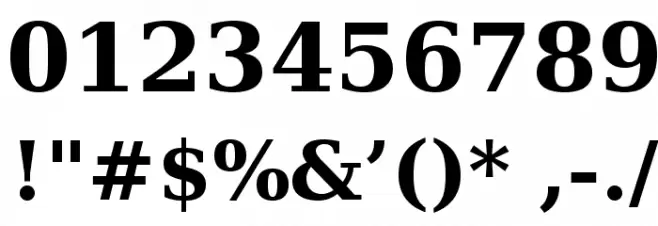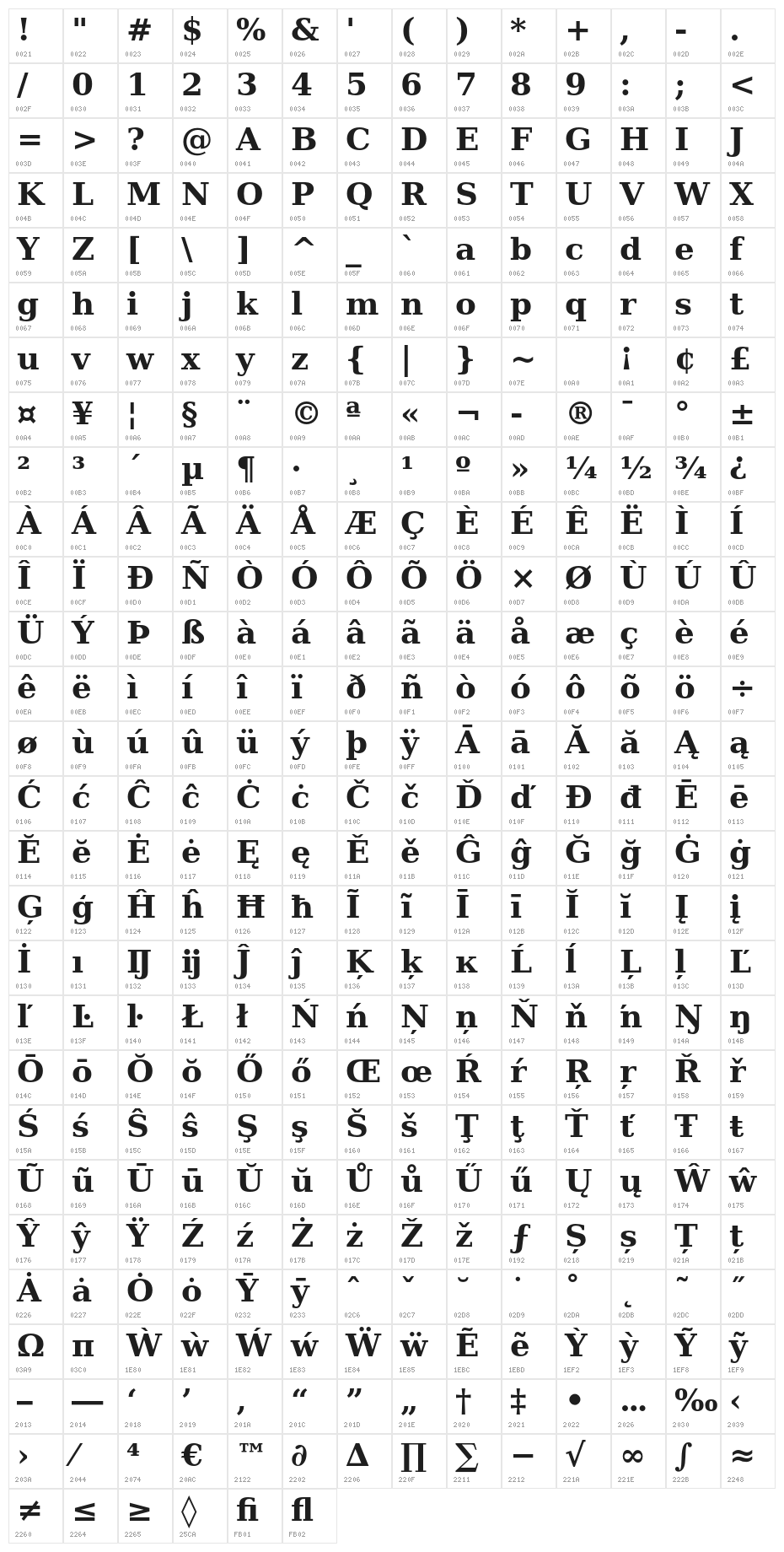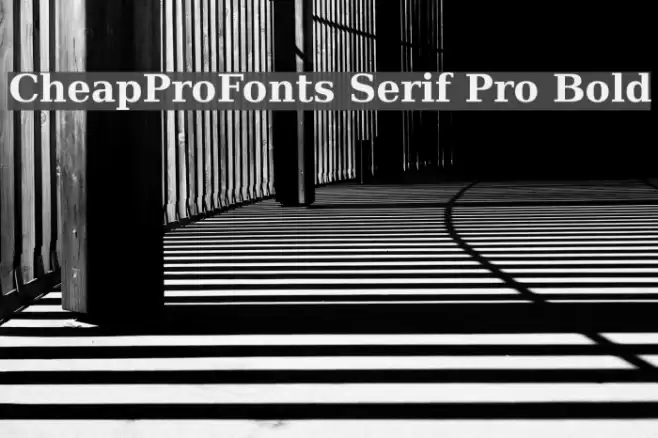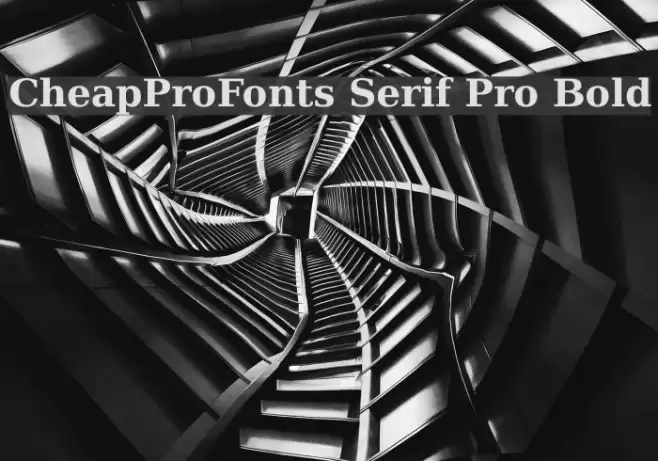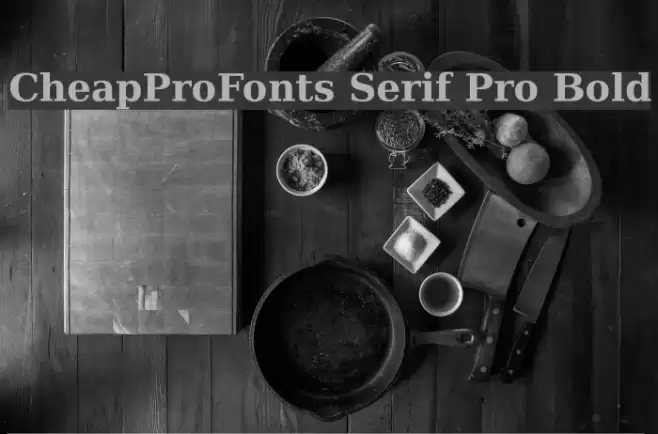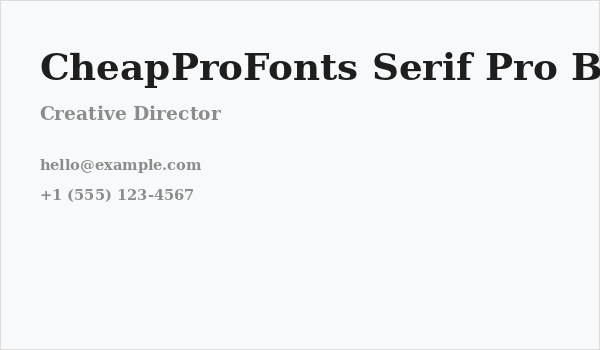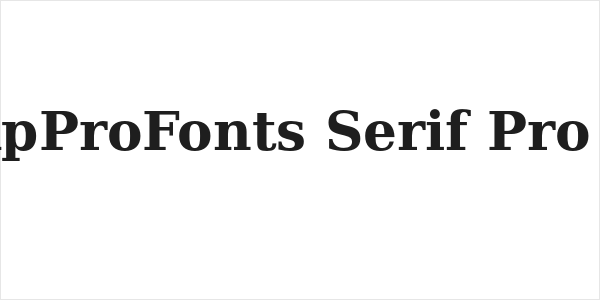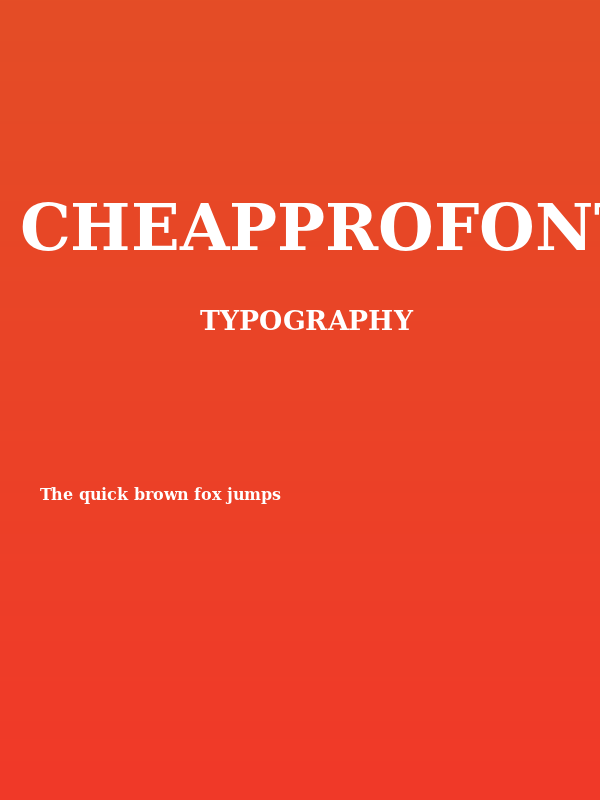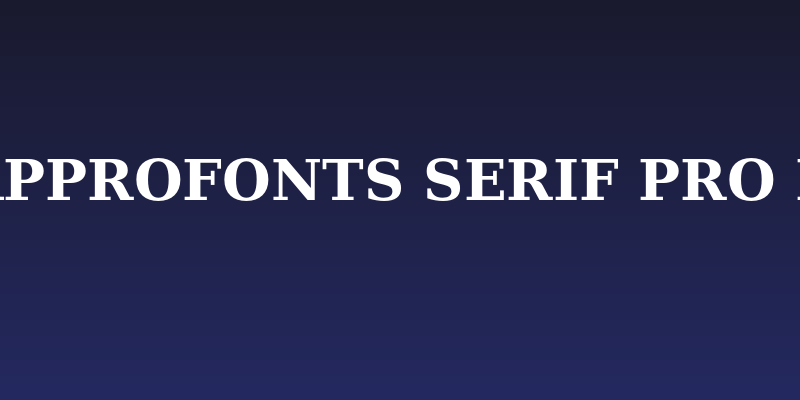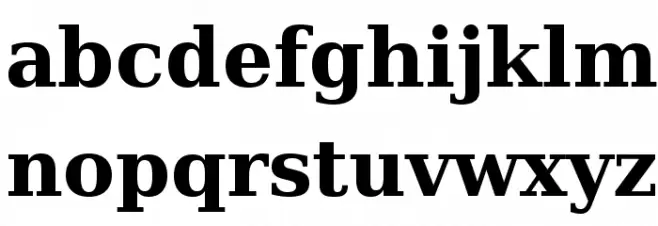
CheapProFonts Serif Pro Bold Font
| Style général | Classic |
| Cas d'utilisation | Headlines, Logos, Editorial design |
| Projets proposés | Ideal for book covers, formal invitations, branding materials, and editorial design. |